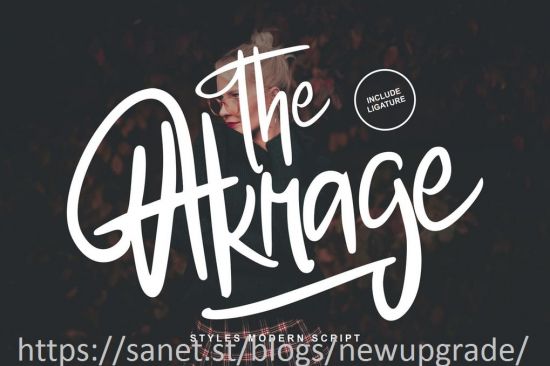
The Akrage | Styles Modern Font with a calligraphy style, So beautiful on invitation like greeting cards, branding materials, business cards, quotes, posters, and more!